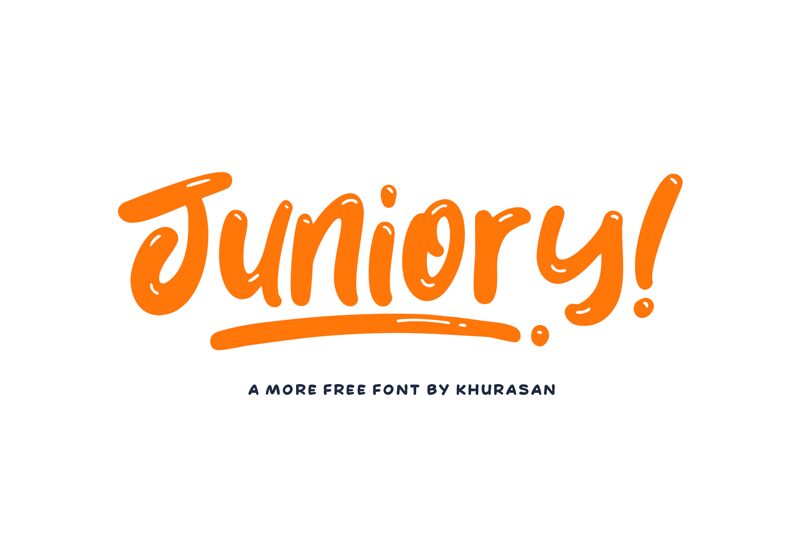
Juniory
Juniory, the playful display font designed by Khurasan, is perfect for adding a touch of whimsy to any project. Featuring a semi-bold weight and cartoon style, Juniory is ideal for creating eye-catching headlines, logos, and branding materials. The fun and youthful nature of this font make it suitable for children's books, toy packaging designs, and even social media graphics targeting young audiences. With its bold lines and unique character shapes, Juniory is sure to bring personality to your next creative project.